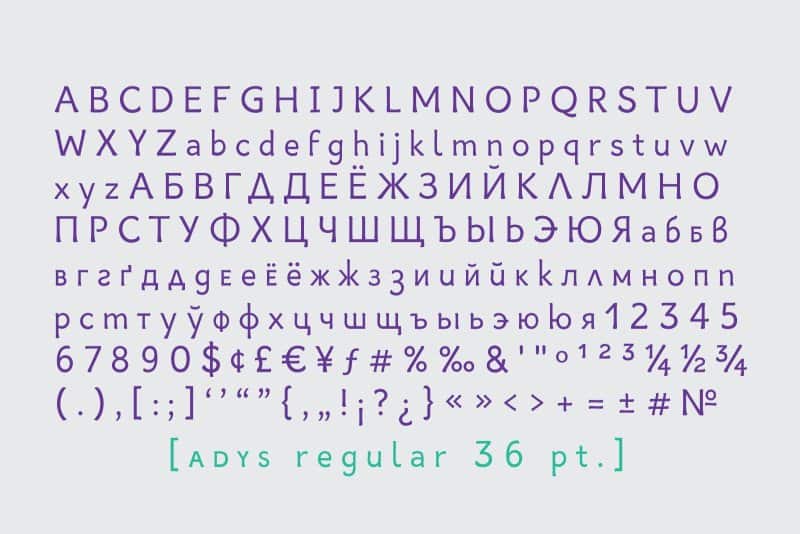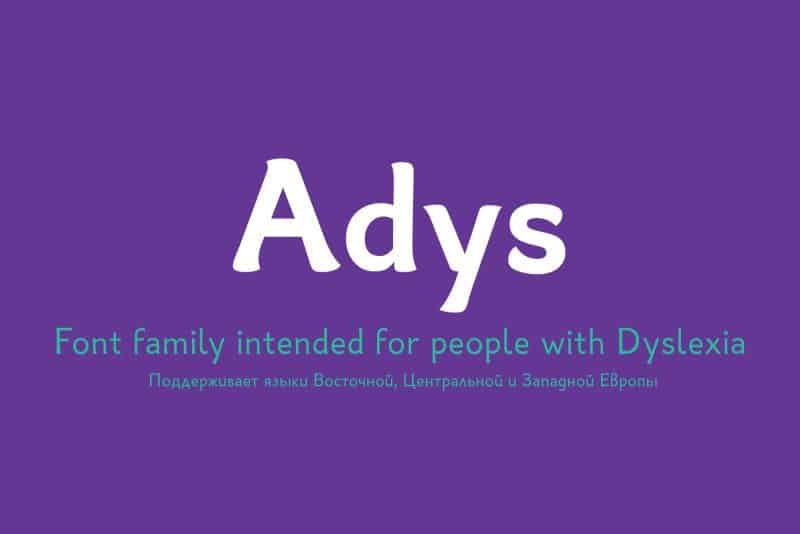
Adys Font
Adys Font falls into the category of the outline fonts. This typeface is understood for its textual content generator characteristic and it is for free. This is one of the splendid-looking fonts available at the proper now. Difficult, formidable and in fact strong, this unfashionable-fashion layout isn’t always unusual in layout.
It’s an extended way the notable font for papers, kohm vintage font is cool typography designed as a gift-day and large shape of figures that cowl easy. Adys Font Free Its ink traps comfy smooth not unusual look even on low-amazing papers. As a save you to surrender the surrender save you stop end result, its dimensions are attempting to find to help the scenario in top and width, therefore makes grand conventional fonts. Each, in reality, one in each of a type the smoothie shoppe font the modern-day display font, the circle of households.
It has to turn out to be produced as someone or a female’s obligation inspired through the useful aid of using a pinnacle-notch layout. It‚Äôs miles one of the great format fonts for titles, headings, and notices. Because of the truth, its dimensions have the purpose of growing area in top and width. Download In addition, an appealing and energetic model can use go with the go along with the waft to decrease another time as a separate font.
The font like graduate font includes the ligatures, ordinals. In aggregate, his direct and rounded strains visible the mind of classical form – vertical mountaineering pilasters, semi-spherical arch, a horizontal cornice.